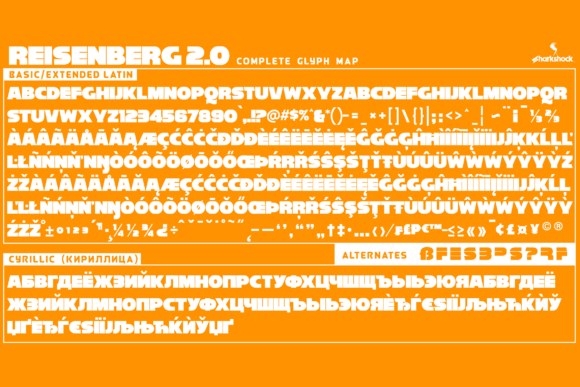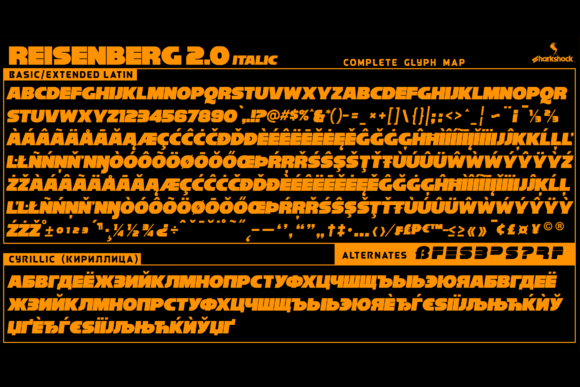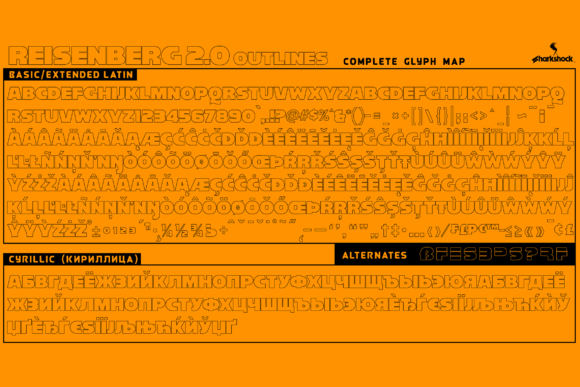
Introduction to Reisenberg 2.0 Font
You’ve spent hours pouring over your design, meticulously crafting every detail, but something’s missing – that final punch to make it truly unforgettable. You’re not alone; many designers have been searching for that one special font to elevate their creative project and make it stand out from the crowd. That’s where the Reisenberg 2.0 Font comes in – a game-changing addition to your design resource arsenal.
This highly sought-after, all-caps display font boasts broad, heavy strokes that command attention and dominate real estate on any page. With its tightly spaced classic design, Reisenberg 2.0 Font is the perfect choice for movie posters, sports logos, or media packaging. Its high quality and versatility make it an invaluable resource for designers, and with a free download available, it’s within reach of any creative project.
Key Features of Reisenberg 2.0 Font
- High-quality design resource ideal for creative projects, offering a unique and stylish aesthetic.
- Features a transparent background, making it easy to integrate into various design elements and backgrounds.
- Includes a wide range of characters, including uppercase and lowercase letters, numbers, and special symbols, making it a versatile design resource.
- Supports resolutions up to 300 DPI, ensuring crisp and clear text display even at high zoom levels.
- Designed with a modern and elegant style, perfect for use in various design contexts, from digital products to print materials.
- Comes in a single weight, providing a clean and consistent visual appearance across all text elements.
Honest Review: Reisenberg 2.0 Font
I recently stumbled upon the Reisenberg 2.0 Font, and I must say it’s a game-changer for any creative project that requires a high-quality, modern design resource. With its sleek and elegant look, this font is perfect for designers who want to add a touch of sophistication to their work.
- High-quality design that’s perfect for modern creative projects
- Transparent background for seamless integration with any design project
However, I did encounter a few limitations. The font may not be suitable for projects that require a more traditional or vintage look. Additionally, some users may find the font to be a bit too minimalist. ⚠️
Overall, I’m impressed with the Reisenberg 2.0 Font. It’s a solid addition to any designer’s toolkit, and I highly recommend it for anyone looking for a high-quality, modern design resource.
The Reisenberg 2.0 Font is a high-quality design resource perfect for creative projects. With its transparent background and sleek aesthetic, it’s an ideal addition to any visual project.
Tips for Getting the Most Out of Reisenberg 2.0 Font
Use the Reisenberg 2.0 Font in bold and italic styles to add emphasis to your text. You can also use it in combination with other fonts to create a unique visual effect.
The Reisenberg 2.0 Font is perfect for creating visually appealing designs, such as brochures, posters, and social media graphics. It’s also great for adding a touch of elegance to your website and business documents.